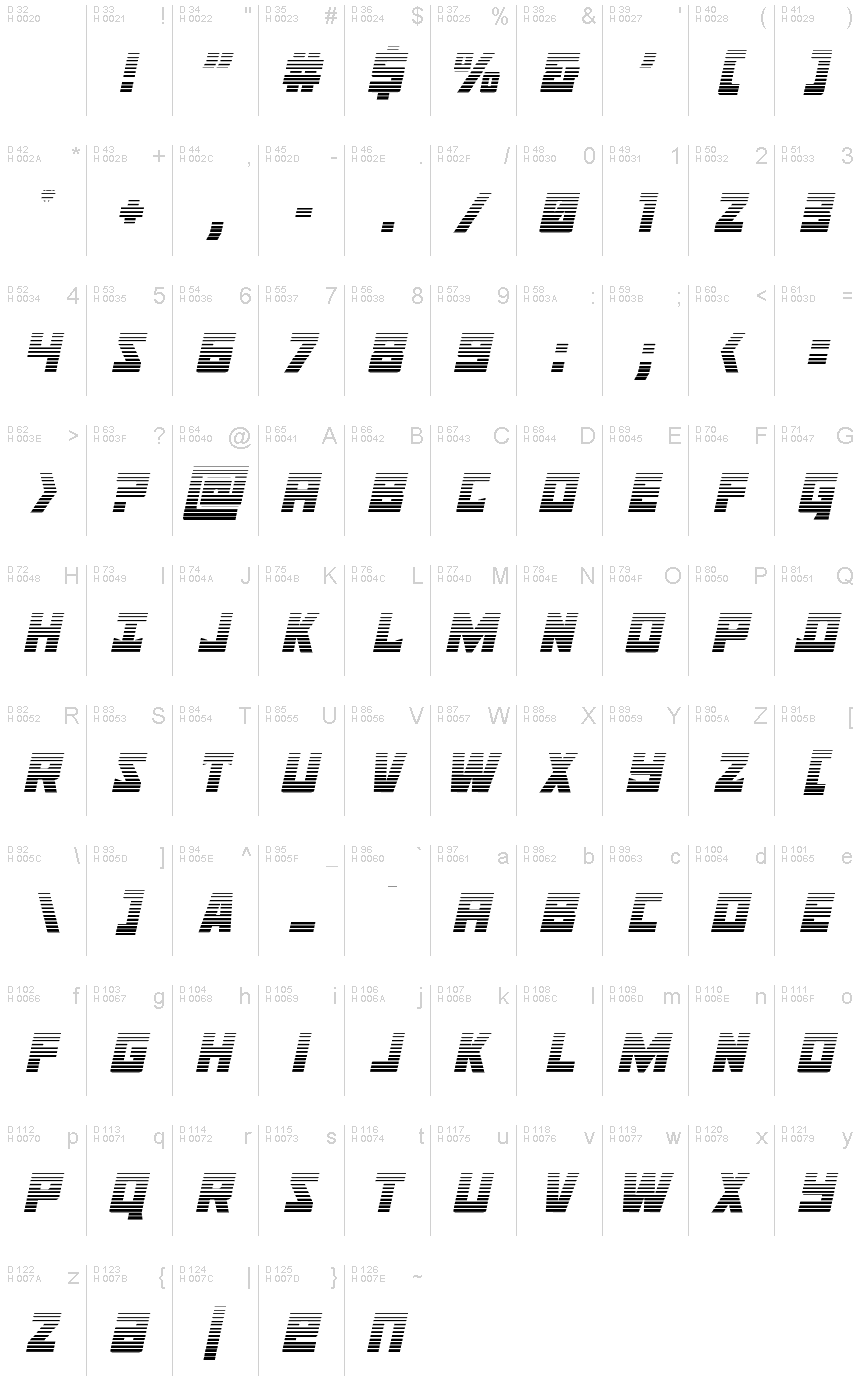
Tower of Silence Gradient Ital
Tower of Silence Gradient Italic, designed by the esteemed Iconian Fonts, stands as a testament to innovation in the techno display font family. Its extra-bold weight commands attention, while the gradient italic variation injects a sense of motion and modernity into any creative project.
Perfect for designers aiming to make a futuristic statement or add an edgy twist to branding, this font is not just typography—it's a style forge for visionary creators. Whether emblazoned across digital interfaces or accentuating print media, Tower of Silence Gradient Italic is poised to elevate your designs with unmatched vibrancy and flair.